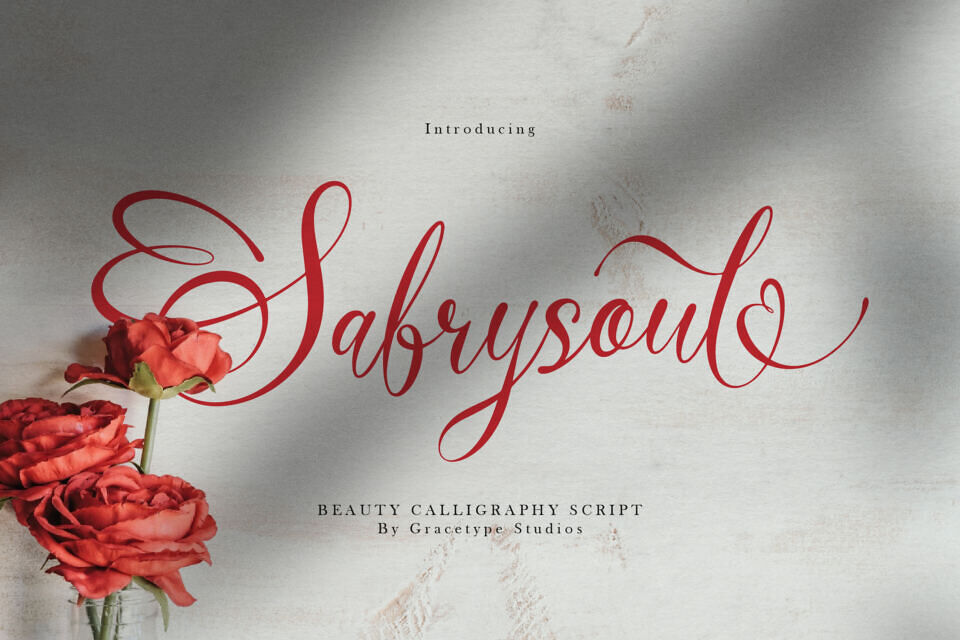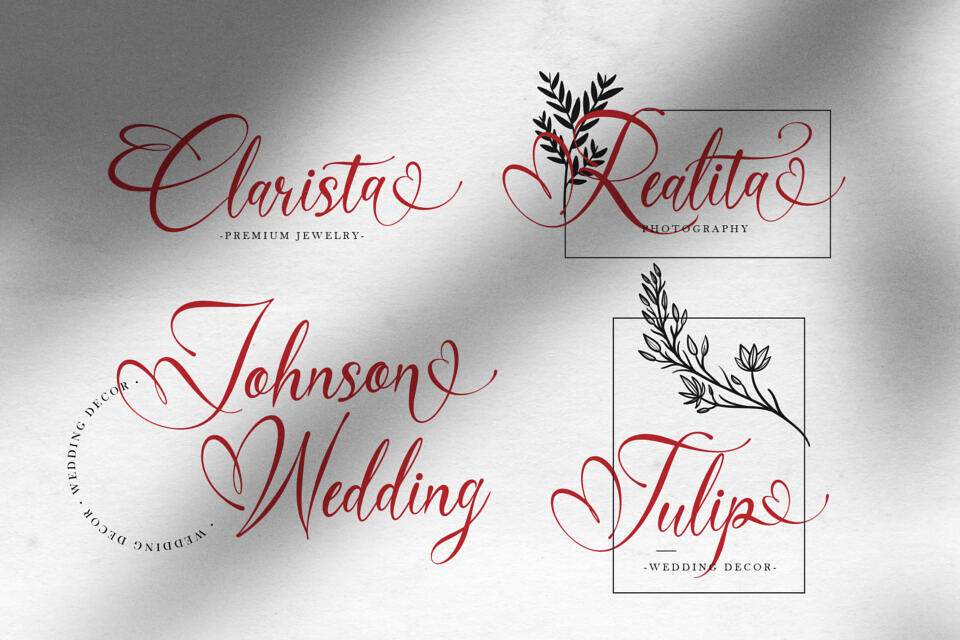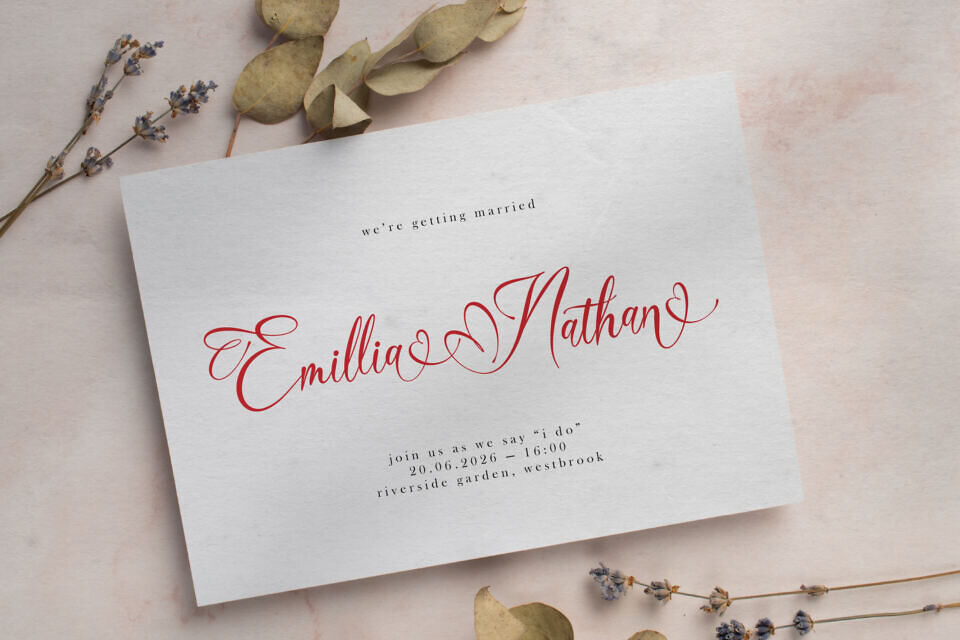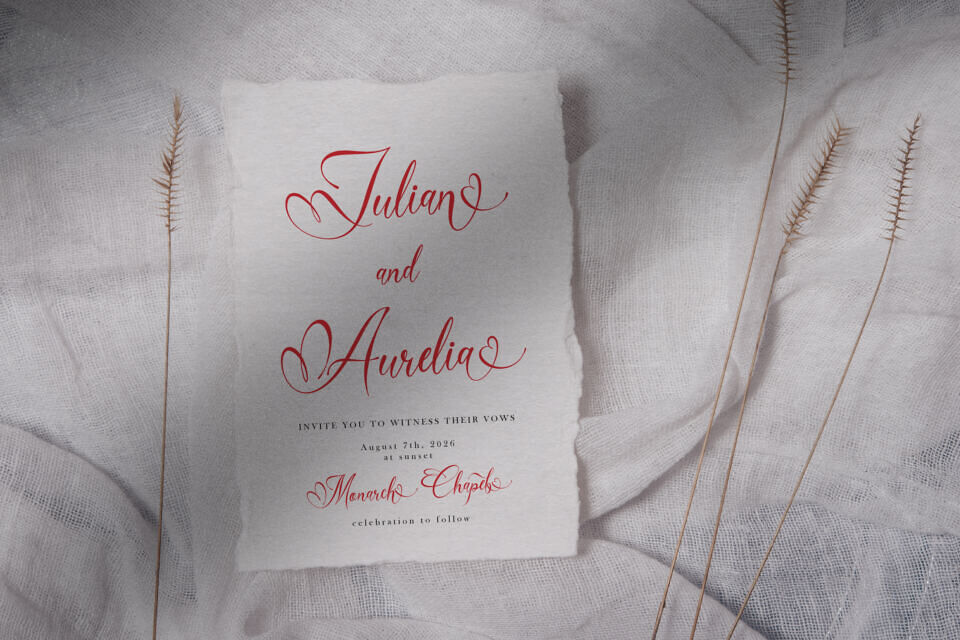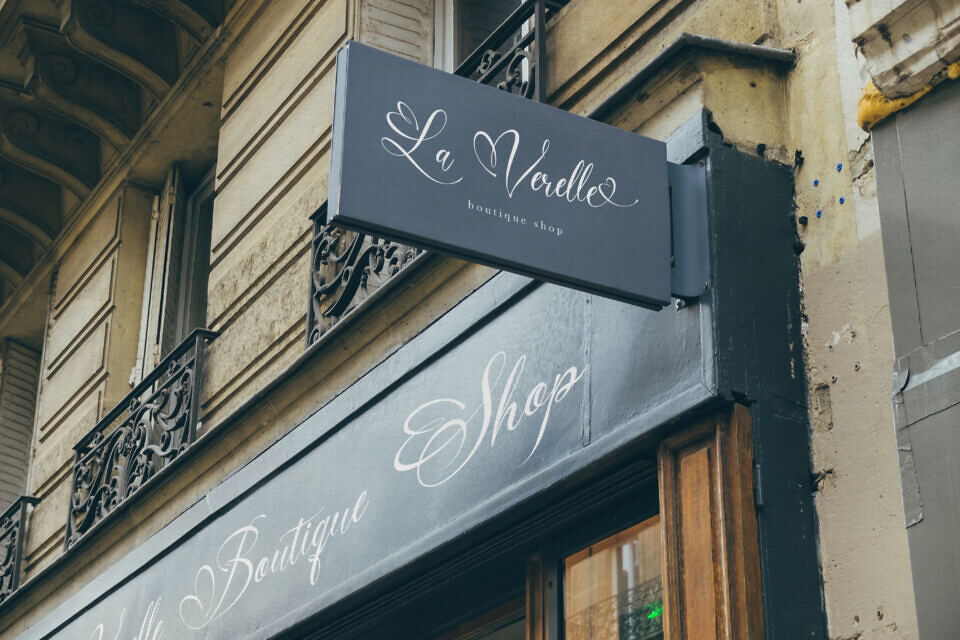
Sabrysoul Font
Sabrysoul is an elegant calligraphy script from Gracetype Studio that blends romantic flair with a modern, whimsical aesthetic. Its fluid cursive strokes include uppercase, lowercase, ligatures, and alternates, making it ideal for luxury branding, wedding invitations, and stylish packaging.
Fully PUA encoded with multilingual support, this font effortlessly elevates logos, photography watermarks, and social media content. Whether you’re designing chic homeware or polished book covers, Sabrysoul provides a high-end, hand-lettered look that turns any project into a sophisticated statement.